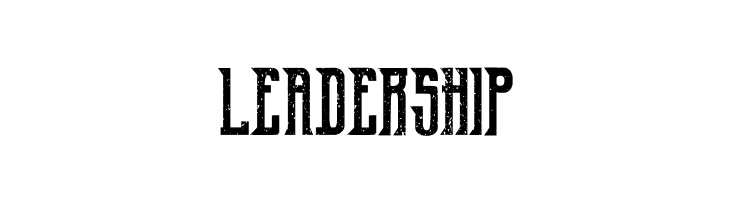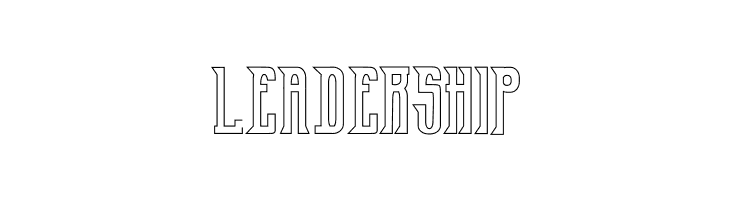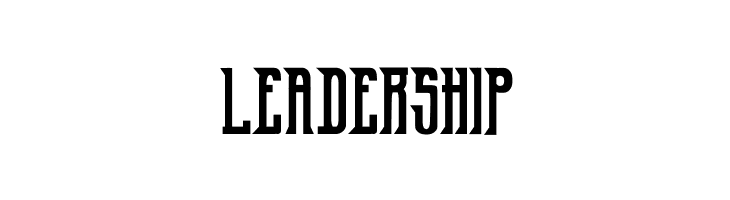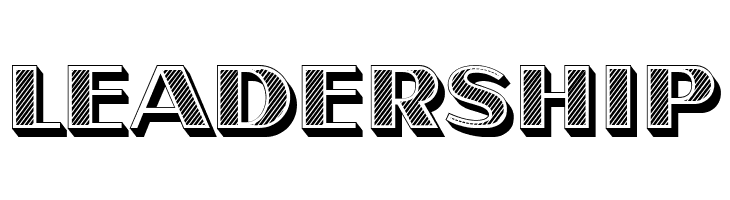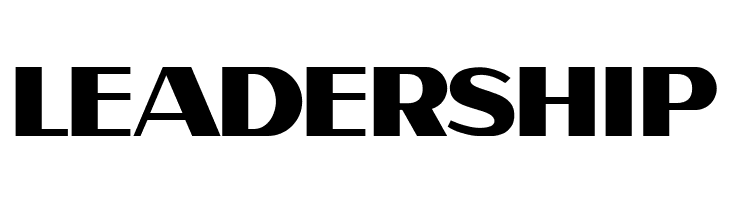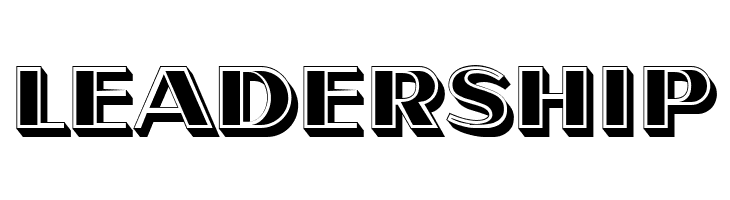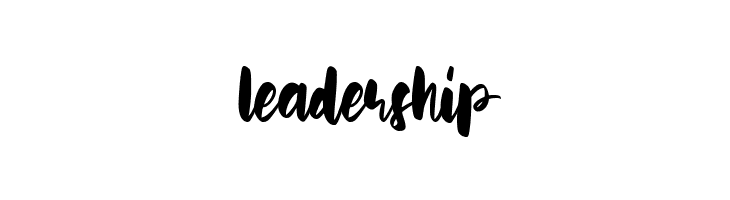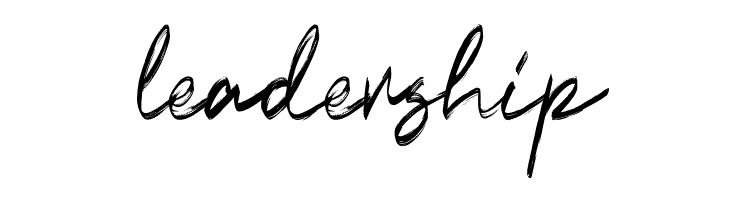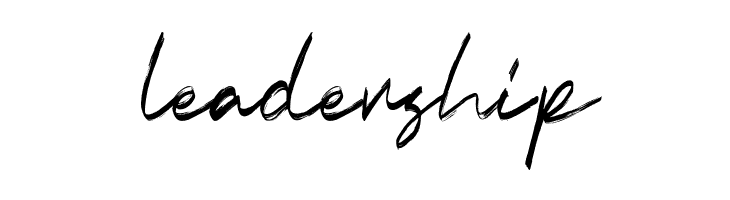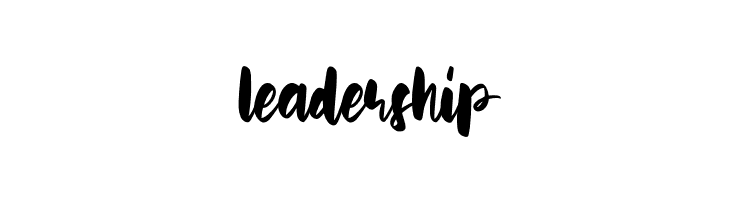
A dynamic, brush-style font with expressive, fluid strokes.
A dynamic, brush-style font with expressive, hand-drawn strokes.
A dynamic, expressive handwritten font with bold, fluid strokes.
A dynamic, handwritten font with bold, brush-like strokes and a natural flow.
A modern, minimalist font with thin lines and geometric shapes.
A modern, thin-line font with geometric precision and minimalist elegance.
A classic serif font with elegant, refined letterforms and medium contrast.
An elegant script font with intricate swirls and decorative flourishes.
A bold, high-contrast font with a modern and assertive style.
A bold, hollow font with diagonal lines, offering a modern and striking appearance.
A bold, three-dimensional font with a shadow effect, perfect for impactful headlines.
A bold, three-dimensional font with strong shadow effects and a vintage-inspired style.
( The Odisean One is designed for large sizes with retro style, including alternative lettering and retro transportation icons. Odisean One will transport you to a bygone era with its retro charm, offering you alternative lyrics that evoke the aesthetic of )
A bold, geometric font with a modern, industrial style and playful special characters.
( The Odisean Small Caps is designed for large sizes with retro style, including alternative lettering and retro transportation icons. - Odisean Small Caps bring elegance and versatility to your designs with their small capital letters. ==================== )
A modern, geometric font with clean lines and uniform width.
A bold, dynamic font with brush-like strokes and a slightly slanted style.
Bold, geometric font with a 3D shadow effect and solid fill.
A bold, 3D font with a dotted inner pattern and strong geometric shapes.
Bold uppercase letters in a decorative square border with a vintage geometric style.
A bold, decorative font with uppercase letters in ornate square borders.
A decorative font with uppercase letters in intricate square frames.
A bold, expressive script font with dynamic strokes and high contrast.
A bold, expressive handwritten font with fluid strokes and dynamic style.
A bold, decorative font with star patterns in each character.
A playful, brush-stroke inspired font with a hand-drawn aesthetic.
A bold, jagged font with a rough, energetic style.
A bold, textured decorative font with jagged edges and high contrast.
Bold, outlined serif font with a modern twist and classic elements.
A bold, modern font with a 3D effect and thick outlines.
A playful, bold font with a bubbly, hand-drawn appearance.
A bold, italicized font with a distressed, vintage look.
An ornate, calligraphy-inspired font with elaborate flourishes and dramatic strokes.
A bold, medieval-inspired font with sharp serifs and elongated letterforms.
A bold, distressed font with a grunge texture and angular edges.
A bold, medieval-inspired font with sharp, angular lines and an outline style.
A vintage, distressed font with bold, angular serifs and a cohesive, weathered texture.